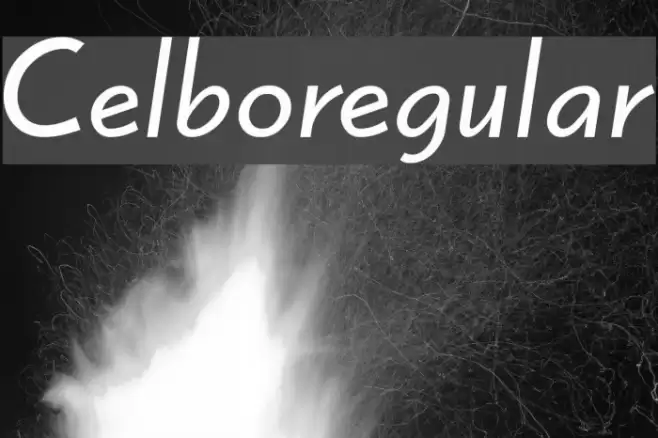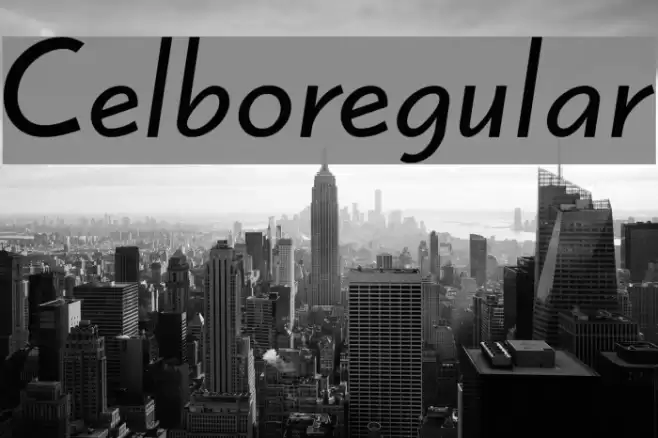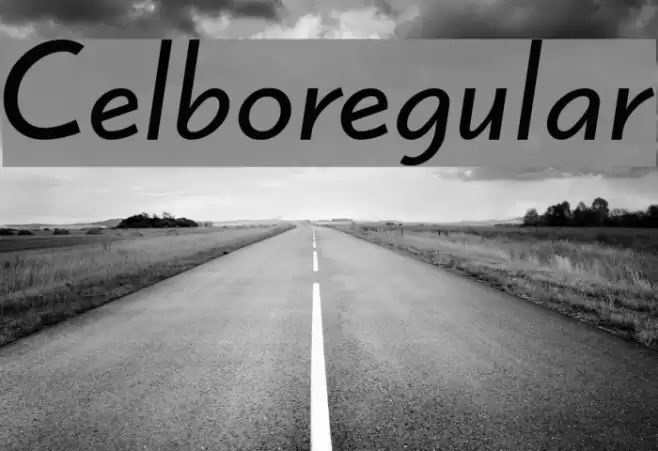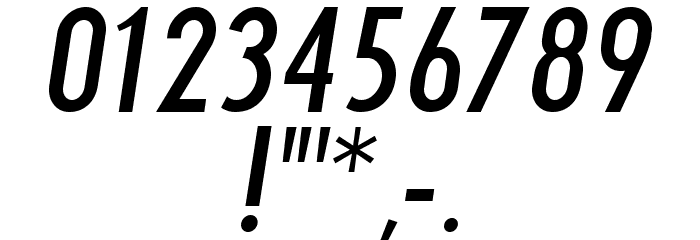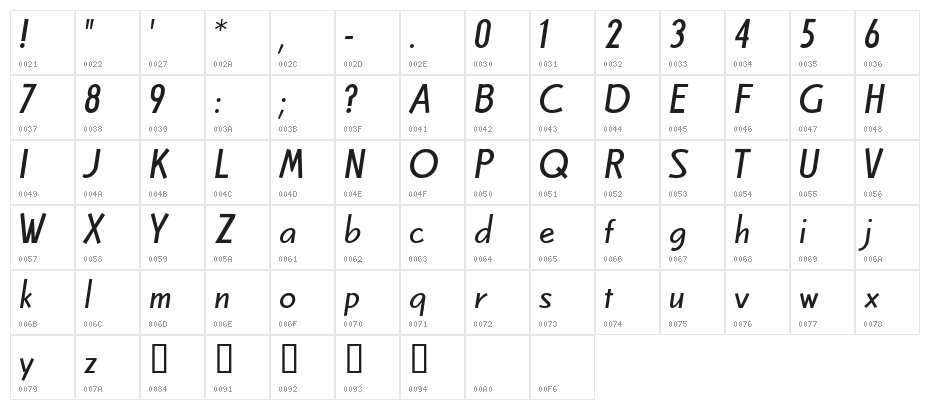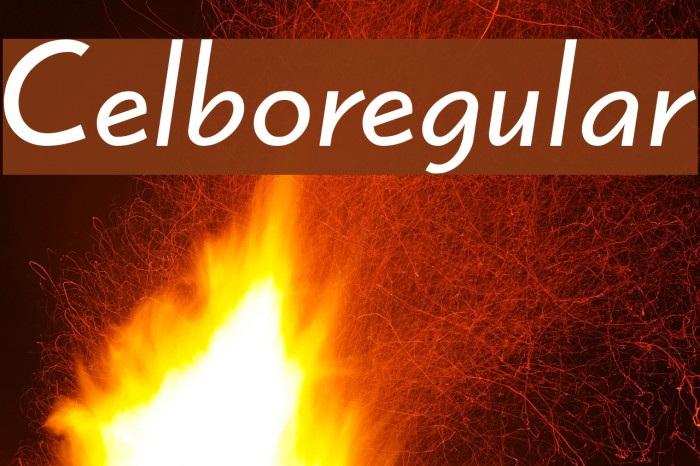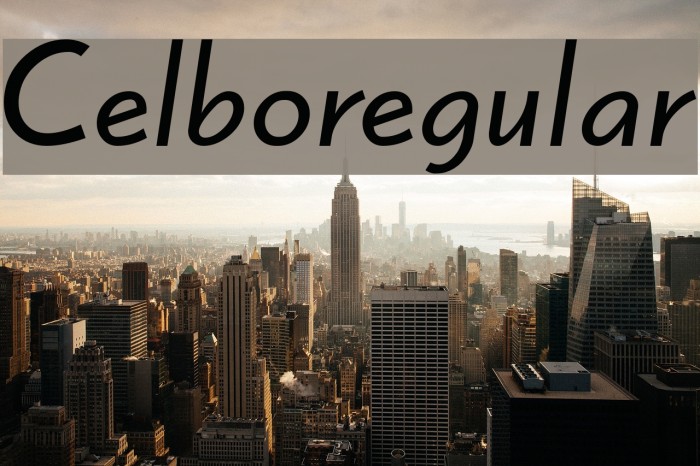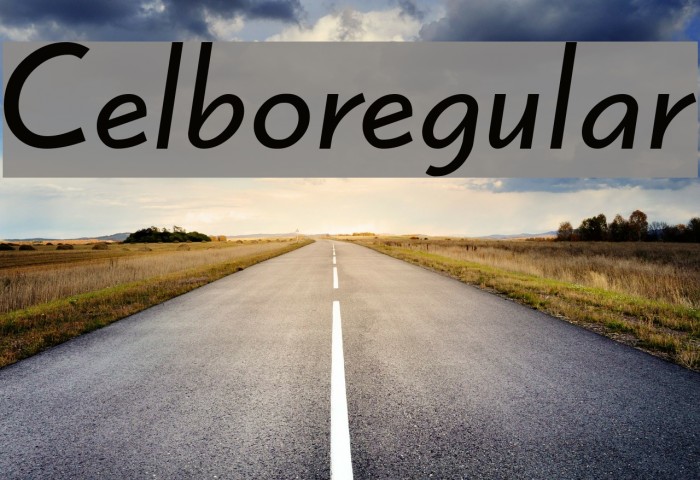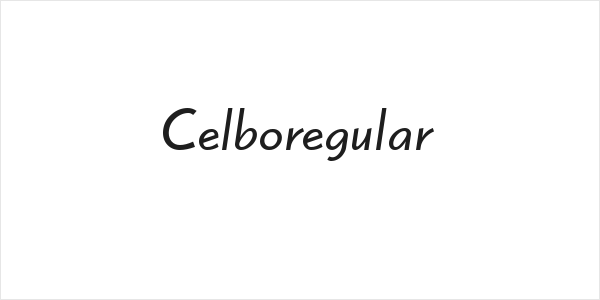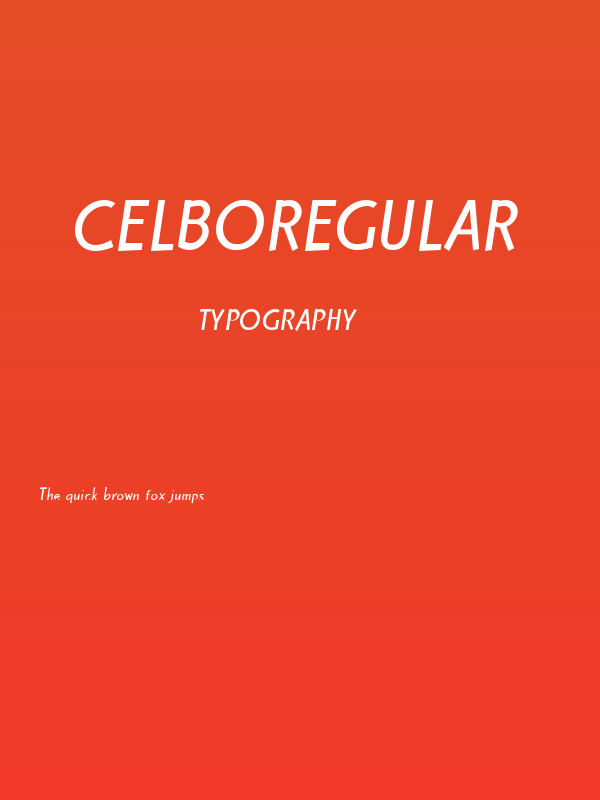
Celboregular Font
Celboregular Description
This font features a clean and modern design with a slight italic slant, giving it a dynamic and forward-moving appearance. The characters are well-proportioned with a consistent stroke width, providing a harmonious and balanced look. The uppercase letters are bold and assertive, while the lowercase letters maintain a friendly and approachable style. The numerals are clear and easy to read, making them suitable for various applications. Special characters are included, adding versatility to the font's usage. Overall, this font combines elegance with readability, making it ideal for both digital and print media.
A modern, slightly italic font with clean lines and balanced proportions from Uncategorized fonts.
- Proposed Projects: Ideal for branding, advertising, editorial design, and digital interfaces.